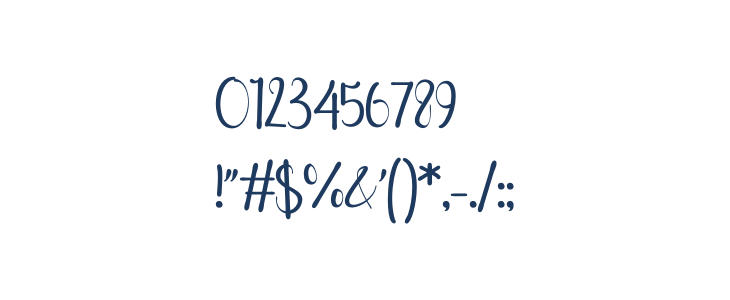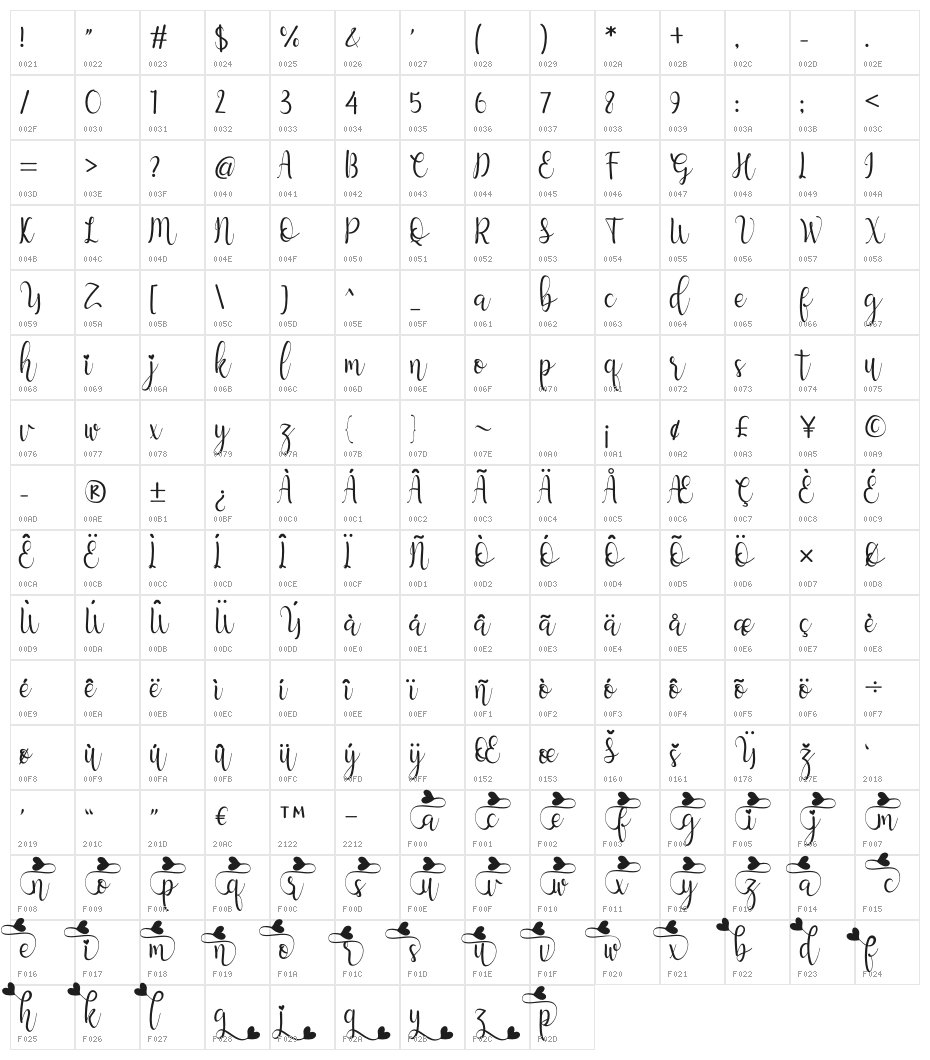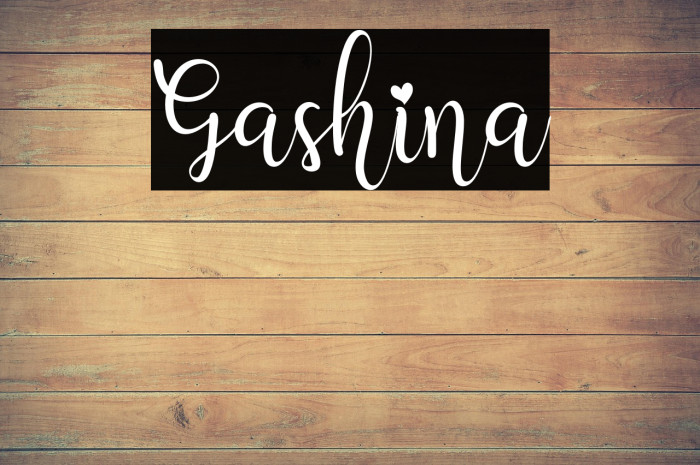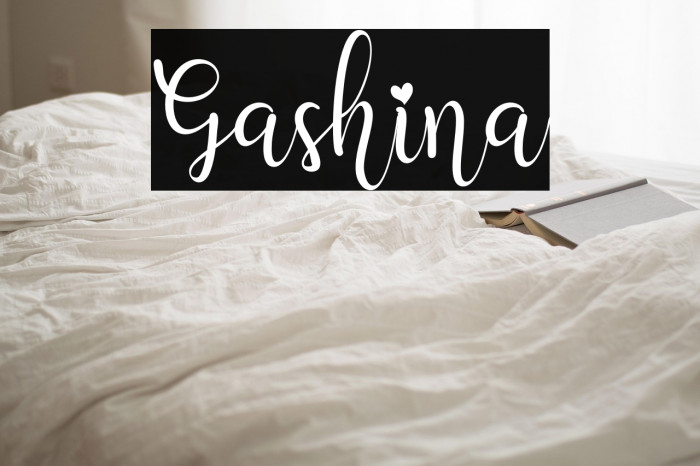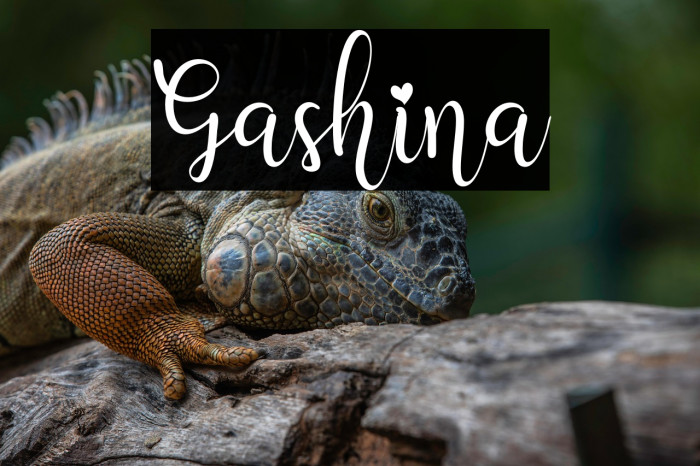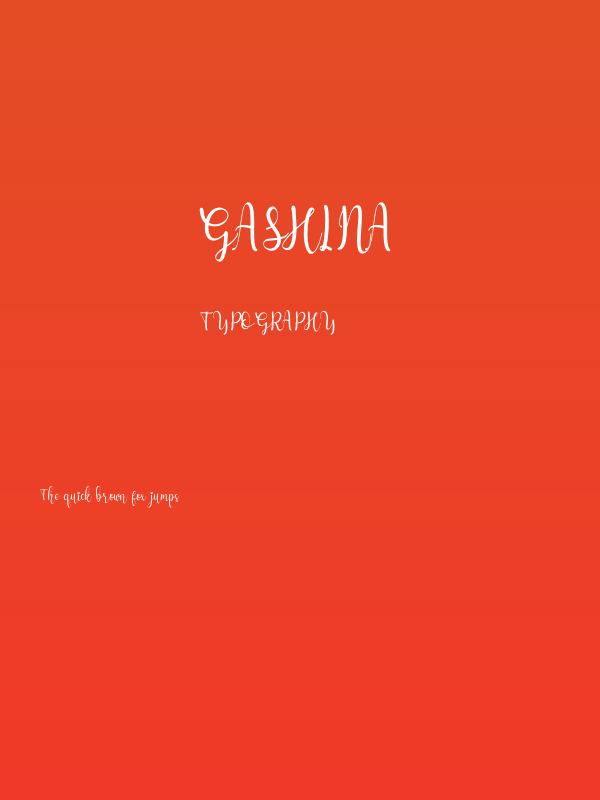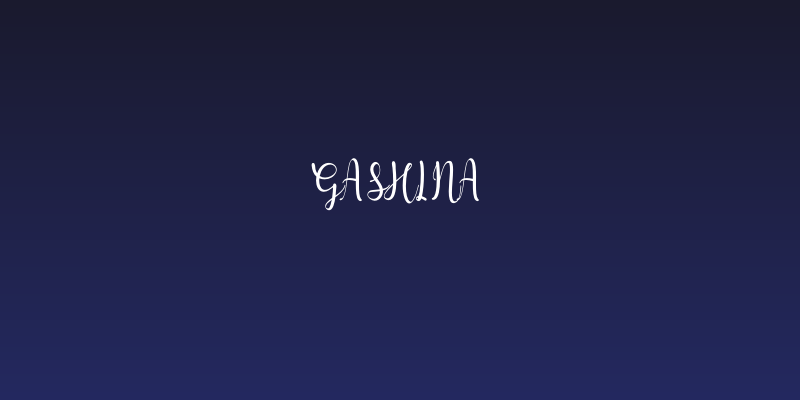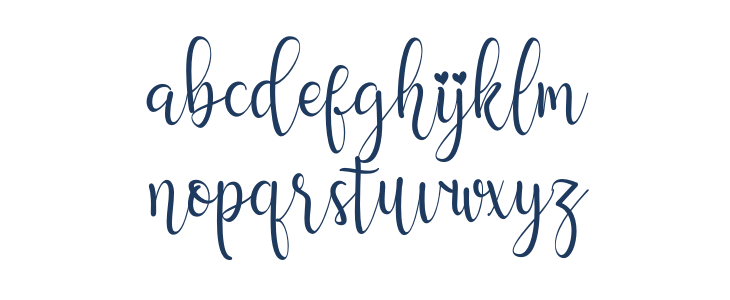
Gashina Font
Gashina Description
This font features a playful and elegant script style with a handwritten appearance. The letters are characterized by their fluid, flowing lines and varying stroke widths, creating a dynamic and lively look. The uppercase letters are tall and slightly narrow, while the lowercase letters have a more relaxed and casual feel. The numerals and special characters maintain the same whimsical style, making them cohesive with the alphabet. This font is perfect for adding a personal touch to any design, with its charming and approachable aesthetic.